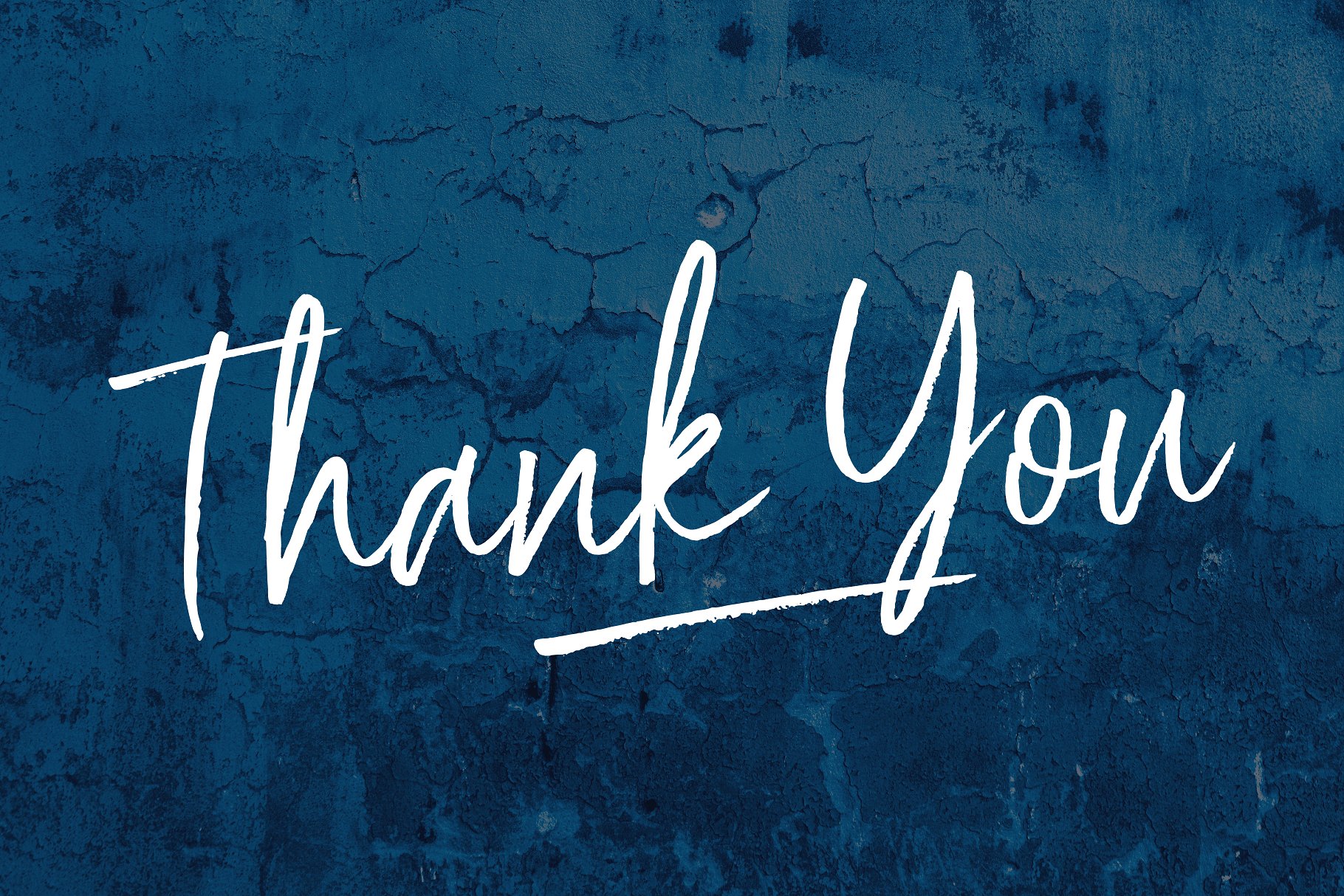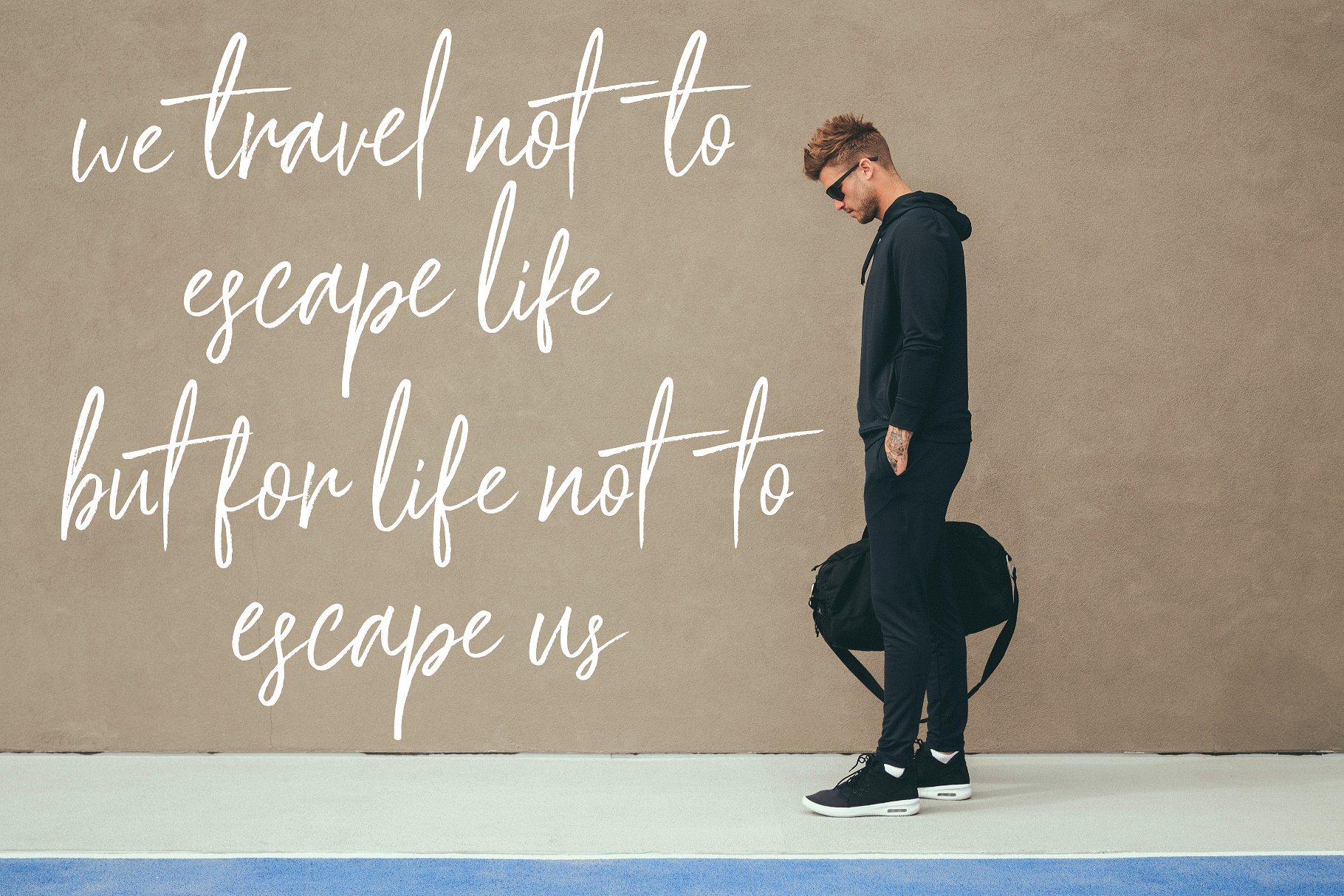
Scriptyca Brush Font
Hello Everyone…! A new brush style, adding a modern and classy touch to your project. Introducing Scriptyca Font. That’s simple, bouncy and cool. Scriptyca can be incorporated into many designs including quotes text, wedding invitations, posters and you can create custom cards to give to your friends and family. Perfect for branding, marriage, social media, product design, stationery, etc.